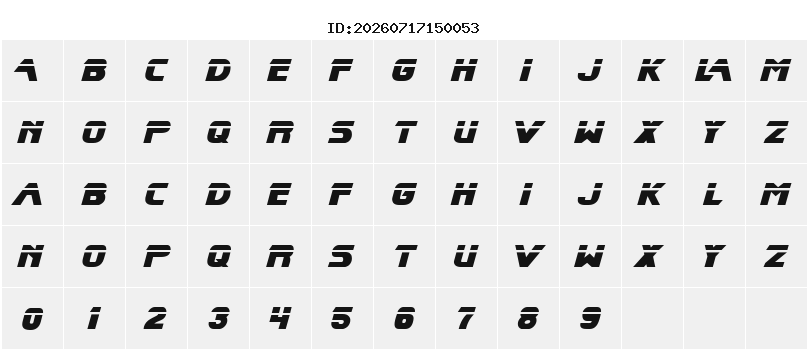
• Font Name: Blade Runner
About Blade Runner.ttf
Blade Runner.ttf is a modern, elegant sans-serif font designed for ultimate readability and visual harmony. Perfect for branding, headlines, web design, and print materials.